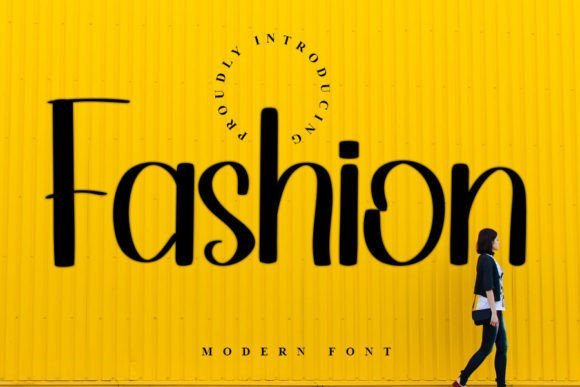
Discover the Timeless Charm of Fashion Font
Have you ever found yourself scribbling down a brilliant idea in the middle of the night, only to realize that it’s actually a brilliant design concept? That’s exactly what happened to me, and it all started with a beautiful handwritten font – Fashion Font. Its unique, elegant touch has been the perfect companion for my creative late-night sessions.
As a designer, I can attest to the power of Fashion Font in elevating our designs. This lovely font is specifically designed to bring out the beauty in our work, making it perfect for logos, branding, and quotes. Every letter has a special touch that brings our designs to life. Whether you’re a seasoned designer or just starting out, Fashion Font is a valuable addition to your toolkit.
Fashion Font Key Features
- Unique Characteristics: Fashion Font features a unique blend of modern and classic elements, with intricate details and ornaments that evoke a sense of luxury and sophistication.
- Font Styles: Fashion Font includes a range of font styles, including regular, bold, italic, and bold-italic, providing designers with flexibility and versatility.
Review of Fashion Font
Overall, I’m impressed with the unique aesthetic of Fashion Font. It’s perfect for creating a stylish and modern look in any design project. ✨ The font’s sleek lines and geometric shapes give it a cutting-edge feel that’s hard to resist.
Here are some of the things I like about Fashion Font:
- Highly customizable: You can adjust the font’s weight, width, and spacing to suit your design needs.
- Perfect for digital designs: Fashion Font is ideal for web design, mobile apps, and other digital projects where a modern look is essential.
- Works well with bold typography: The font’s geometric shapes make it a great choice for bold, eye-catching headlines.
- Not ideal for long blocks of text: Fashion Font is best used for short headings and titles, as the font can become overwhelming when used extensively.
- Limited font sizes: While you can adjust the font size, it’s not ideal for very large or very small text, as it can become distorted.
- May not be suitable for formal designs: Fashion Font has a modern, trendy feel that may not be suitable for formal or traditional designs.
Overall, I think Fashion Font is a great choice for designers who want to add a touch of modern style to their projects. While it has some limitations, it’s a versatile and highly customizable font that’s sure to impress.
Tips for Getting the Most Out of Fashion Font
Use Fashion Font to add a touch of elegance and sophistication to your designs. Experiment with different font sizes and styles to create visual hierarchy and emphasis. Combine Fashion Font with other design elements, such as images and graphics, to create a cohesive and visually appealing design.
Fashion Font is ideal for designing fashion-related materials, such as clothing labels, fashion magazines, and product packaging. It’s also suitable for creating luxury and high-end branding materials, such as business cards and brochures.